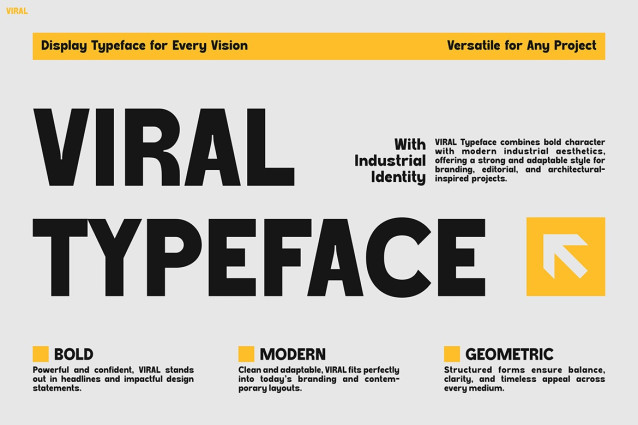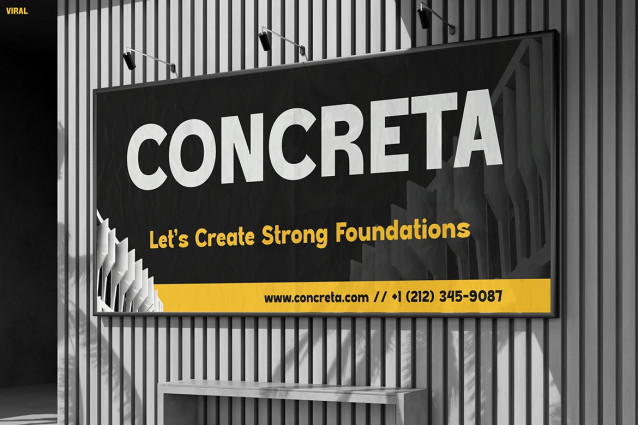
Viral Font
Viral Font is not just another typeface—it’s a game-changer for creatives who want their designs to stand out. With its bold geometric structure, modern curves, and sleek readability, this font captures attention instantly. Every character is crafted with balance, making it both powerful in headlines and versatile in body text. The strong contrast and clean edges make it perfect for creating impactful statements while keeping a professional aesthetic. This unique blend of strength and style is why Viral is quickly becoming a favorite among designers who aim to combine minimalism with bold visual energy.
Instagram Font Viral delivers more than just looks—it brings function, clarity, and power to every project. Its aesthetic feels futuristic yet grounded, making it suitable for both print and digital works. Whether you’re designing for branding, editorial layouts, social media posts, architecture presentations, industrial reports, or event promotions, this typeface adapts beautifully. The uppercase letters radiate authority, while the lowercase keeps a softer, approachable tone. Its versatility ensures you can scale it for posters, packaging, or logos without losing sharpness or readability.